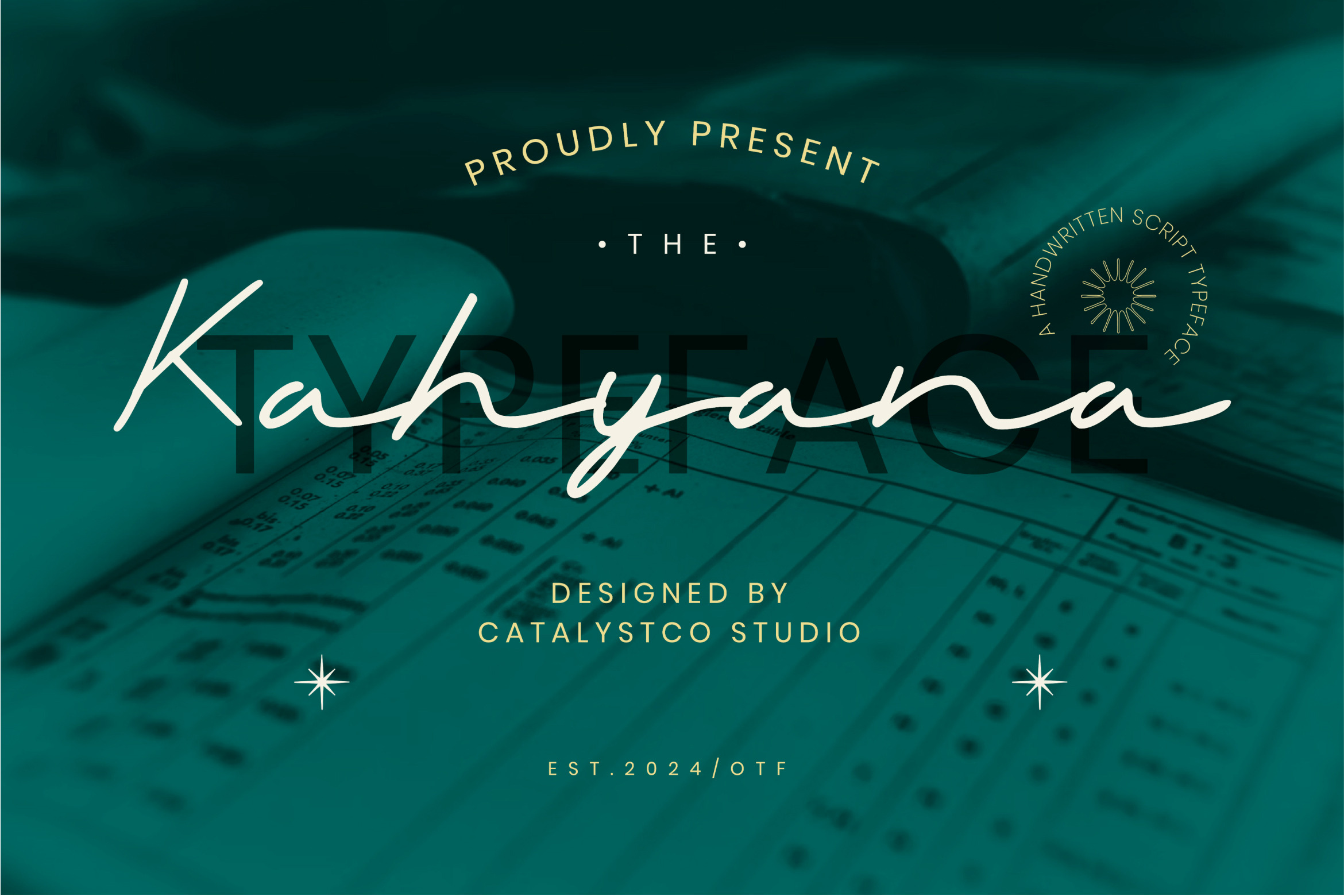
Kahyana Handwritten Script Font
Kahyana Handwritten Script Font typeface excellent used for the manufacture quote text, logotype, header magazine, and many more.